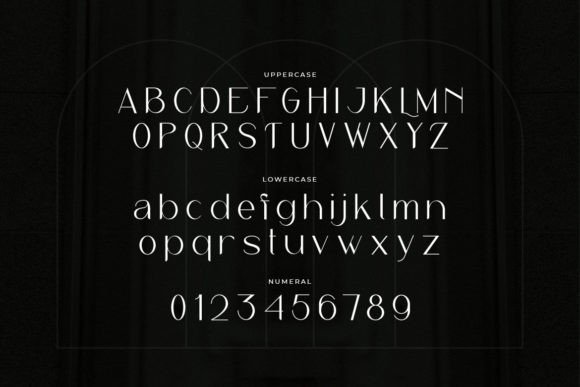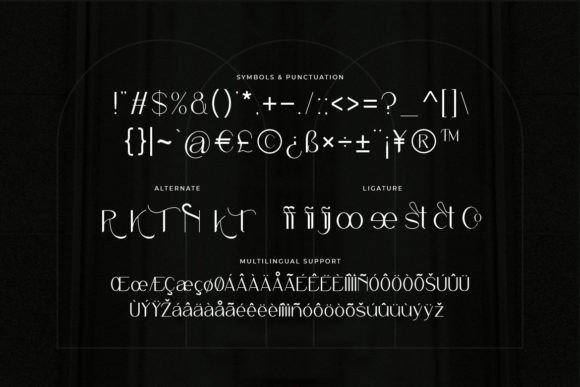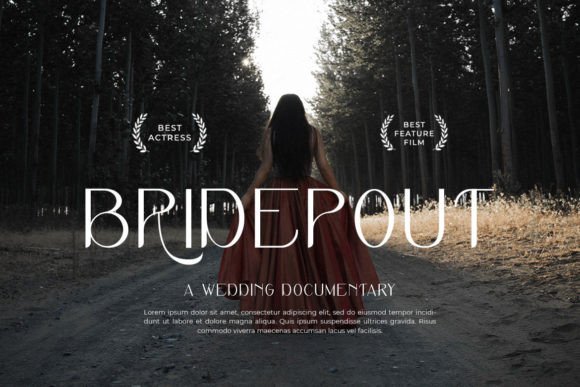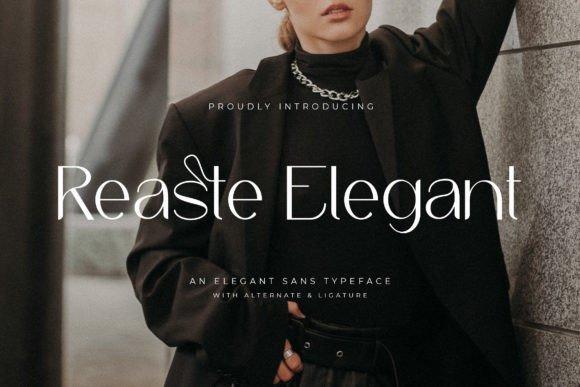
Introduction to Reaste Elegant Font
Reaste Elegant is an elegant and modern sans serif font.
No matter the topic, this font will be an incredible asset to your fonts library, as it has the potential to elevate any creation .
Key Features of Reaste Elegant Font
Why Choose Reaste Elegant Font?
Reaste Elegant Font offers exceptional quality and versatility, making it a valuable addition to your design toolkit. Whether you’re creating for personal projects or commercial use, Reaste Elegant Font delivers professional results.